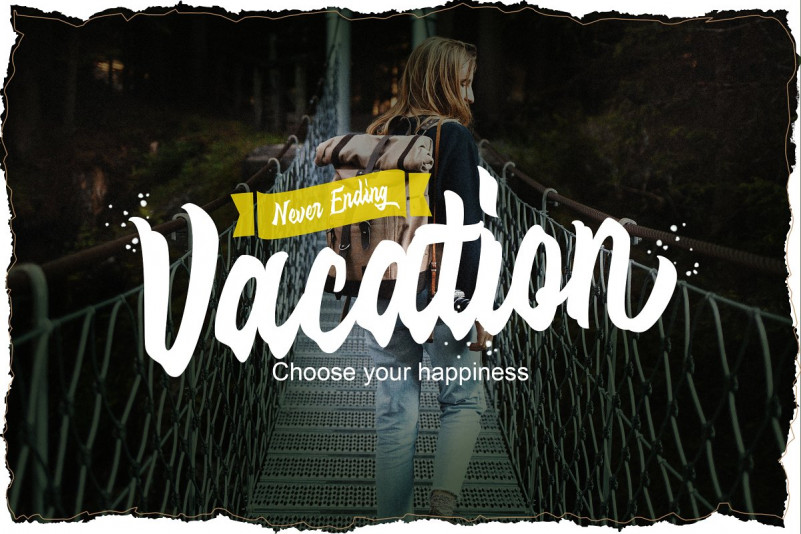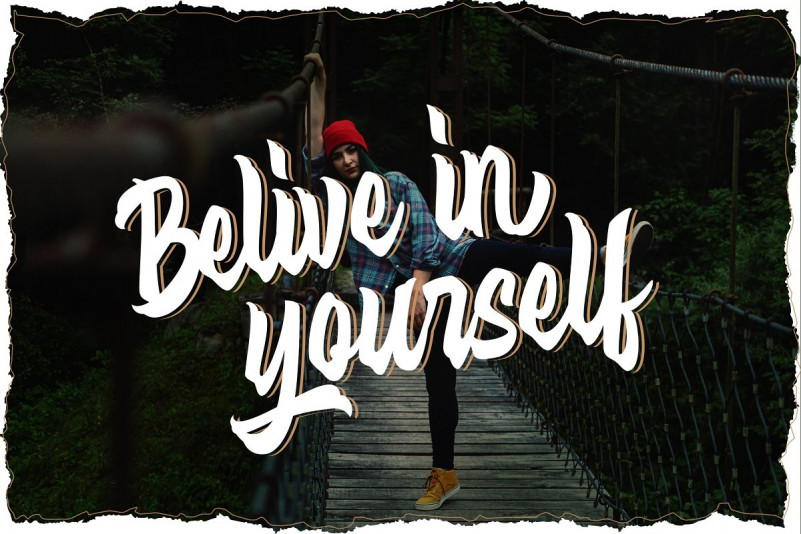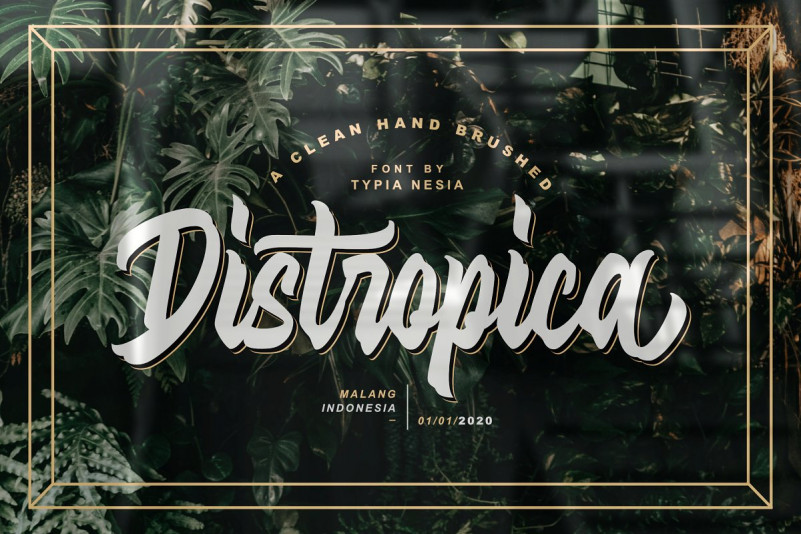
Distropica Font
Distropica Script Display font is an excellent font for modern hand lettering logo or headline / display / poster designs.
Suitable for any design needs : logo, branding, modern advertising design, logos, poster quote, book / cover Title, editorial design, website / blog, card, custom mug, pillow, t-shirts, and any hand-lettered needs.